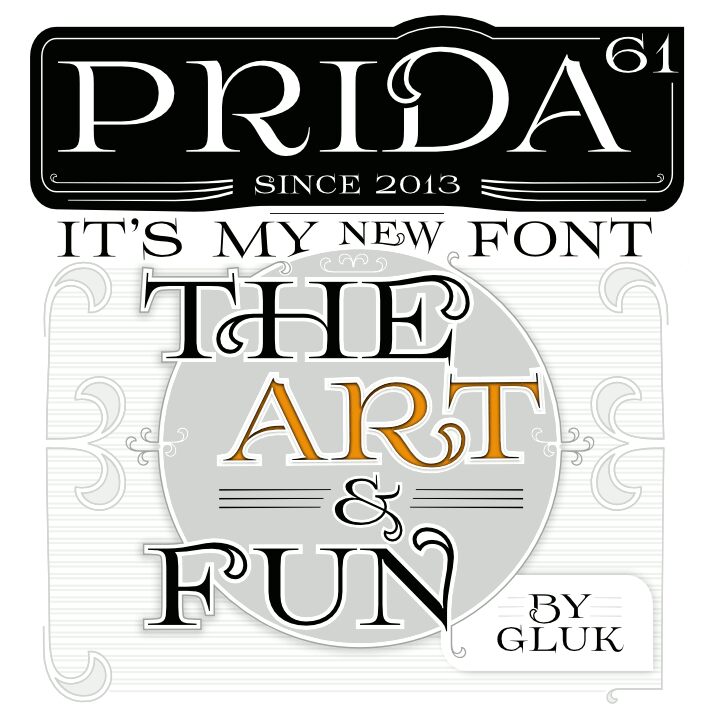
Prida 61, a captivating display font designed by the talented gluk, exudes a delightful retro flair. With its expanded width and intricate, decorative characters, this font commands attention, making it a remarkable choice for eye-catching headlines, impactful logos, and vintage-inspired branding. The bold, refined strokes and dramatic flourishes evoke a sense of timeless elegance, perfectly suited for bringing a touch of vintage-inspired charm to a wide range of design projects, from book covers and posters to packaging and advertisements.
Prida 61's unique aesthetic blends the nostalgia of the past with a modern, sophisticated allure, making it a versatile tool for designers seeking to create visually striking, memorable designs that stand out in any setting.